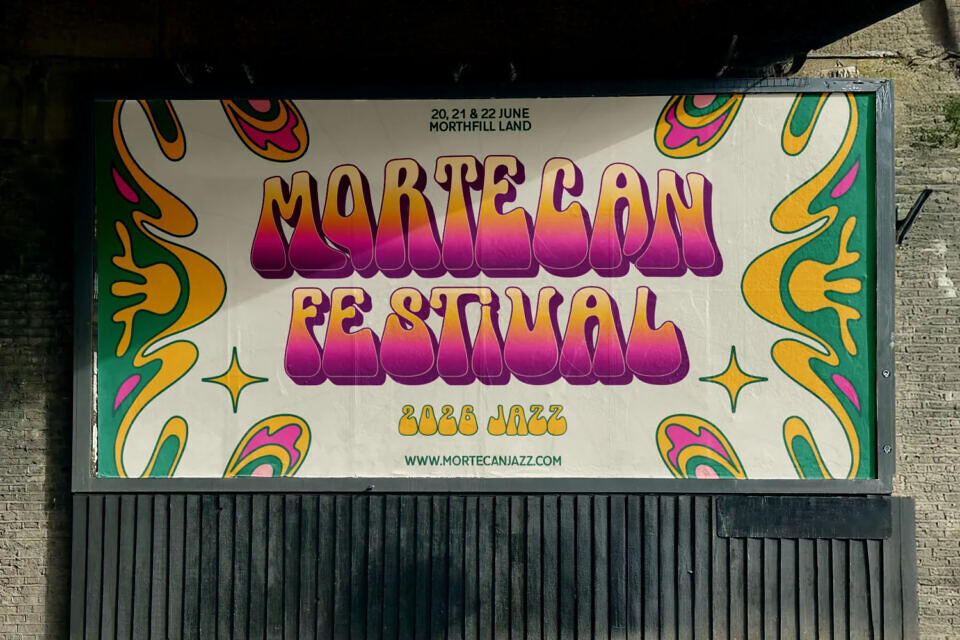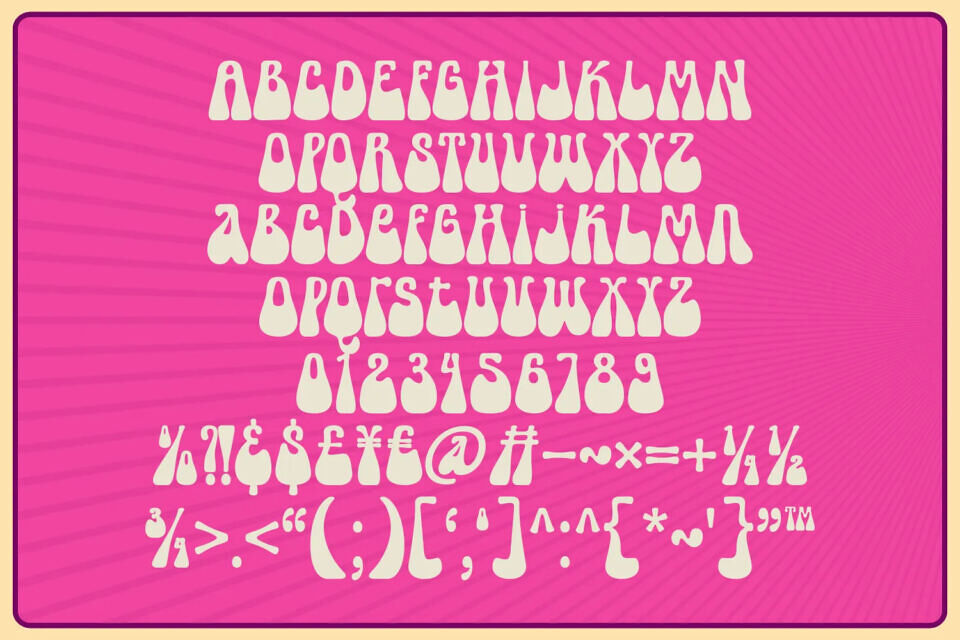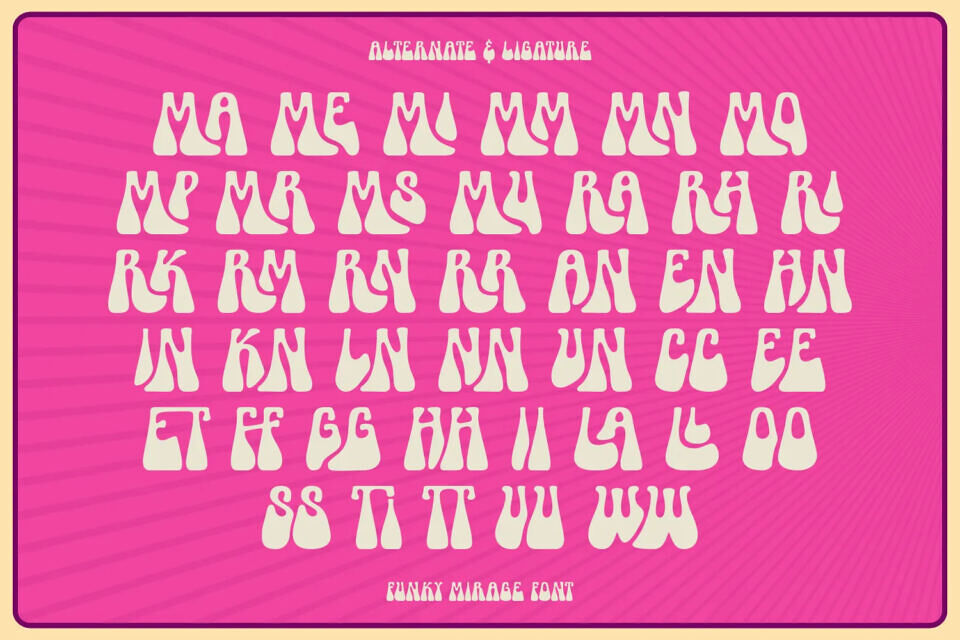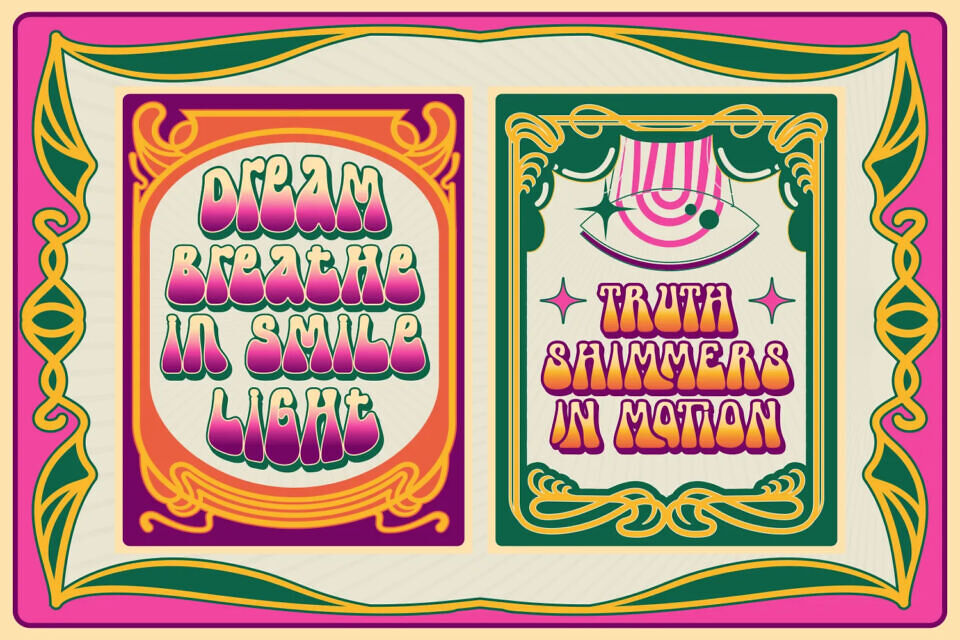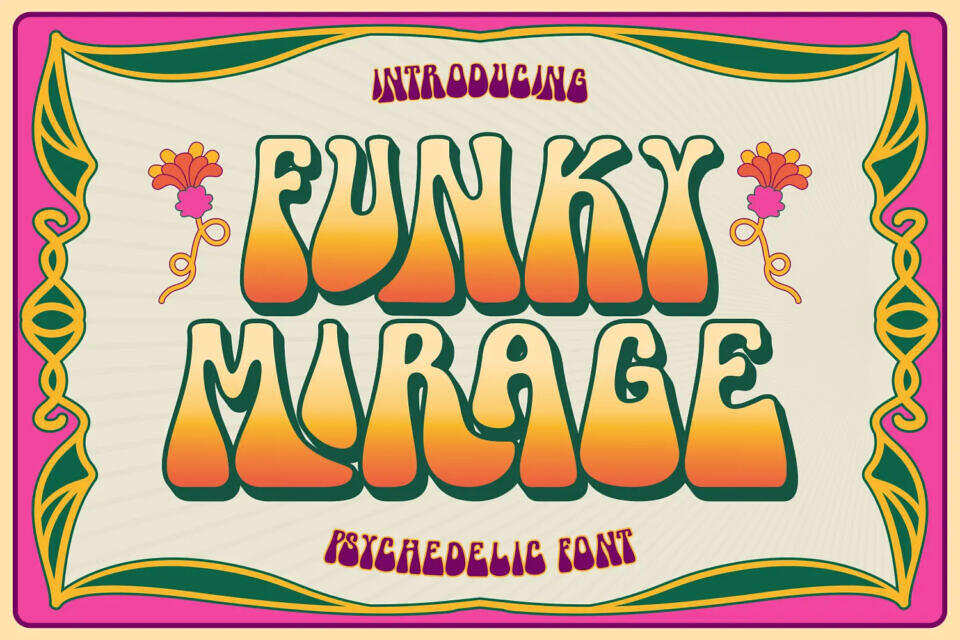
Funky Mirage Font
Funky Mirage is a psychedelic serif font that blends vintage groove with bold, mind-bending character. Featuring wavy details, fluid curves, and expressive serifs, this font captures the free-spirited energy of retro psychedelic design.
Perfect for music posters, album covers, festival branding, trippy artwork, and statement headlines, Funky Mirage brings a vibrant and nostalgic vibe to any creative project.